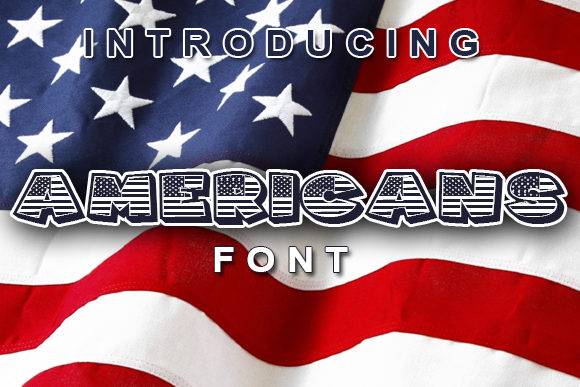
In a realm of digital artistry, the Americans Font emerges as a patriotic masterpiece, a fusion of creativity and national pride. Crafted meticulously by the ingenious vladimirnikolic, this font carries the essence of America's vibrant spirit.
With its bold strokes and captivating stars and stripes design, the Americans Font unveils a symphony of visual delight. Each character exudes a patriotic charm, inviting you to weave tales of freedom, unity, and unwavering spirit into your digital creations.
Step into the world of graphic artistry with the Americans Font as your unwavering companion. Design social media posts that ripple with red, white, and blue, igniting a spark of national pride. Craft eye-catching headers and titles that leave an indelible mark on your audience, inspiring them to embrace the essence of Americana.
Elevate your e-commerce ventures to new heights with the Americans Font. Create product descriptions that capture the essence of your products, using this font to weave a narrative that resonates with customers seeking a touch of patriotic flair. Design captivating logos that embody the essence of American enterprise, leaving a lasting impression on your clientele.
The Americans Font is more than just a font; it's a digital brush that paints stories of freedom, unity, and the pursuit of happiness. Download it today and unleash your creativity, adorning your digital creations with the colors of the American dream.
Express your love for the red, white, and blue in a way that's uniquely yours. Let the Americans Font be your digital quill, penning tales of patriotism and national pride that resonate with audiences far and wide.
Soar high on the wings of creativity with the Americans Font, and let your designs reflect the spirit of a nation united under the banner of liberty and justice for all.